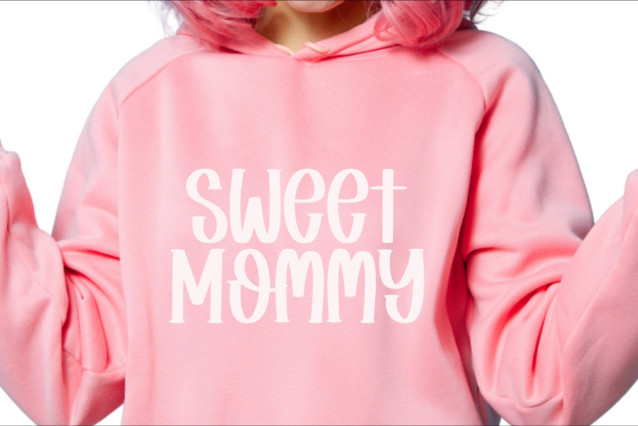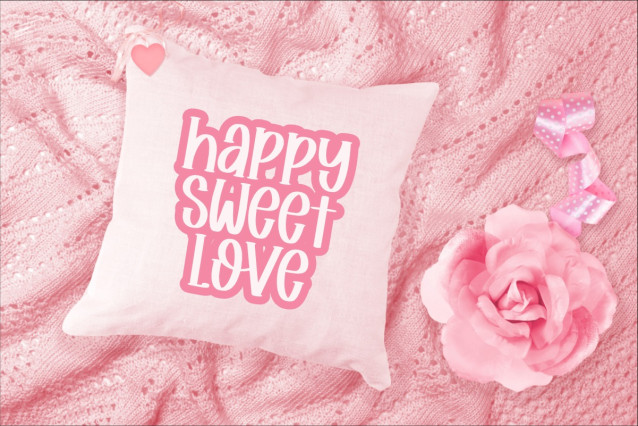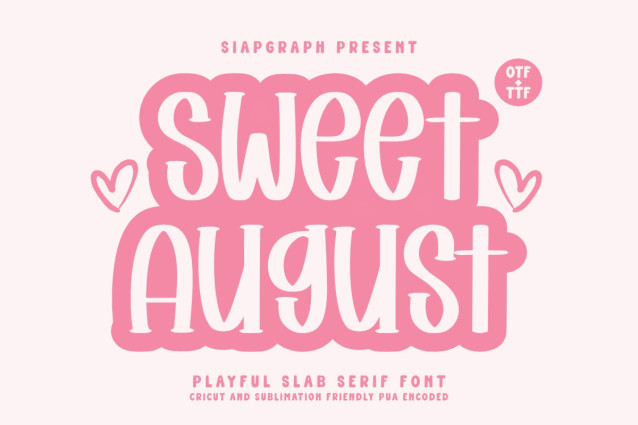
Sweet August Font is a playful, rounded slab‑serif font that radiates cuteness and positivity—perfect for cheerful prints, pastel‑themed crafts, and anything that needs a dash of sweet charm. Inspired by hand‑lettered candy‑shop signage and softened with modern curves, this typeface is built for effortless readability on both digital and physical products.
Whether you’re designing uplifting quotes for Print On Demand shirts, pastel sublimation tumblers, or adorable Cricut projects for your Etsy customers, Sweet August delivers an irresistible, friendly vibe. The font is fully PUA‑encoded and works flawlessly with Cricut, Silhouette, and all major design software.